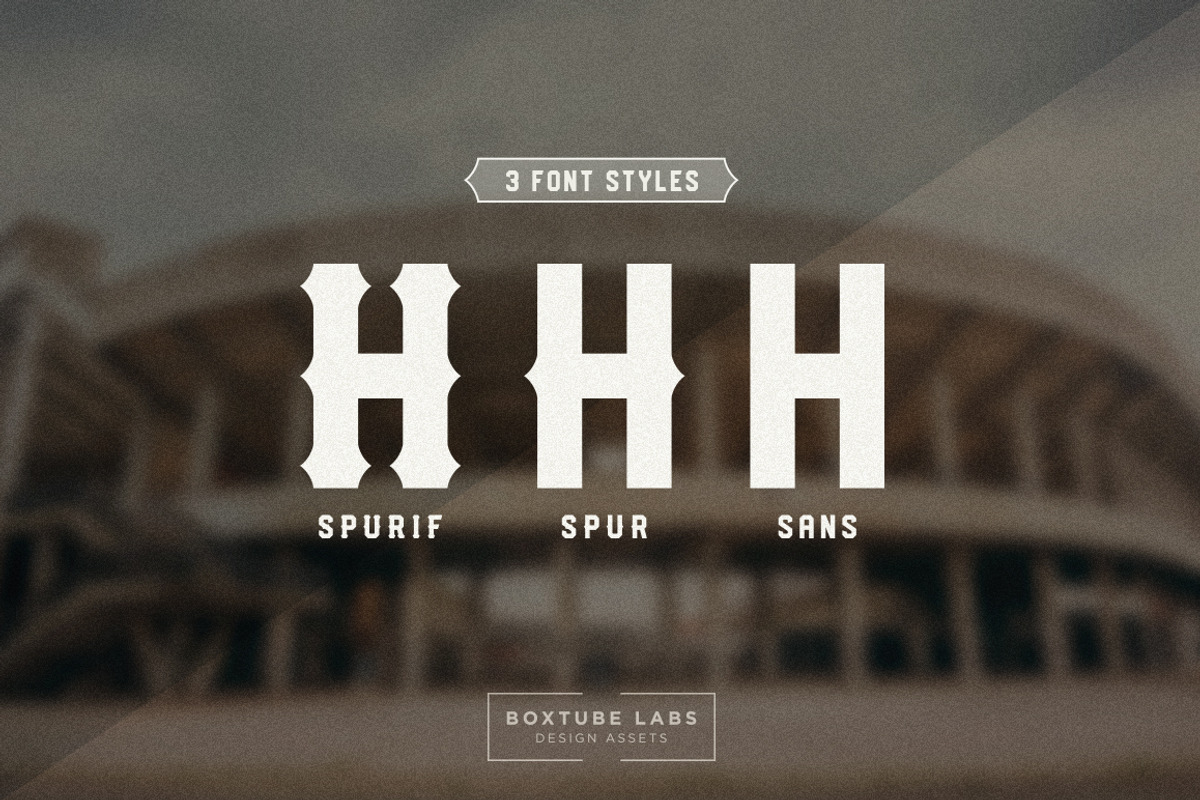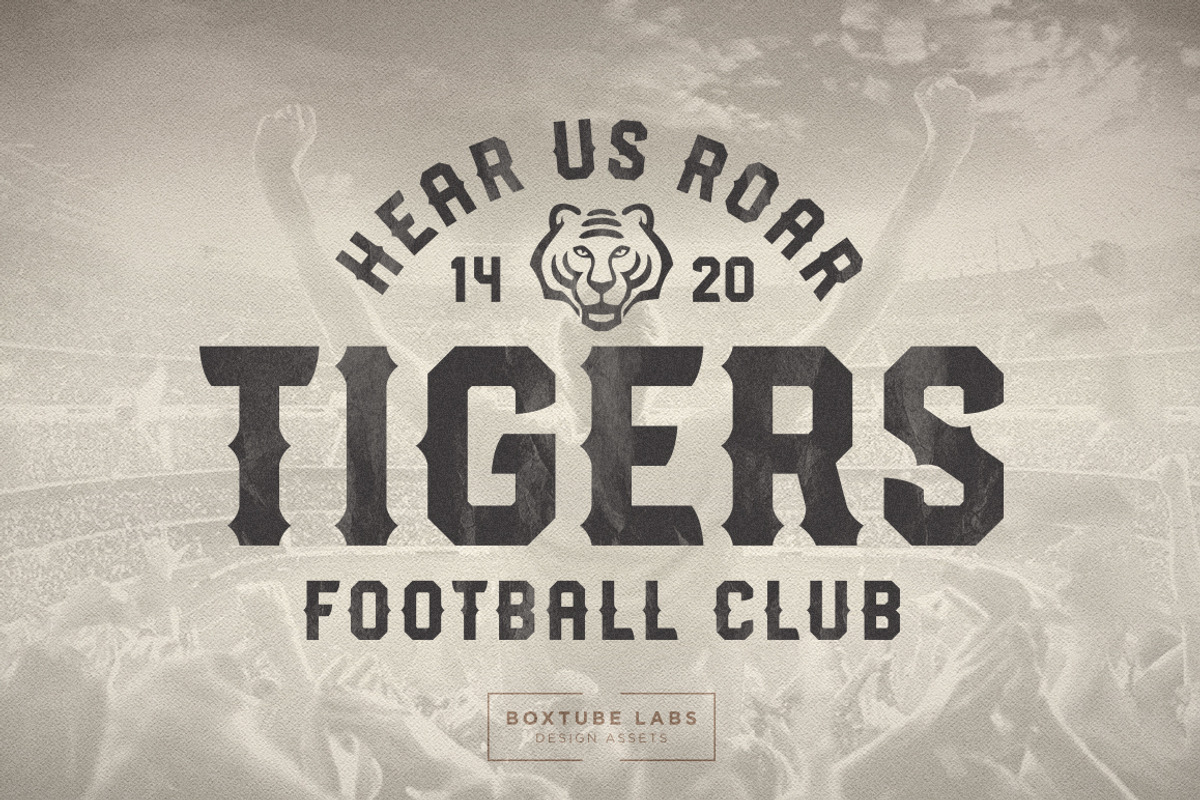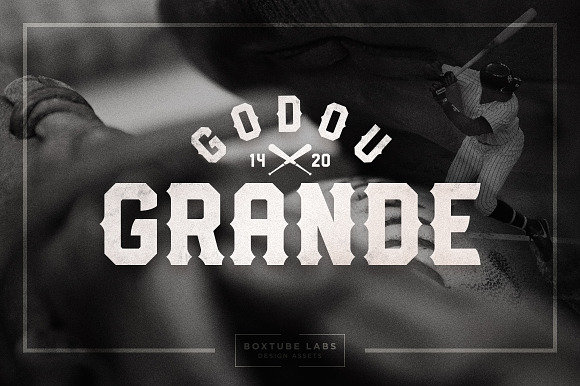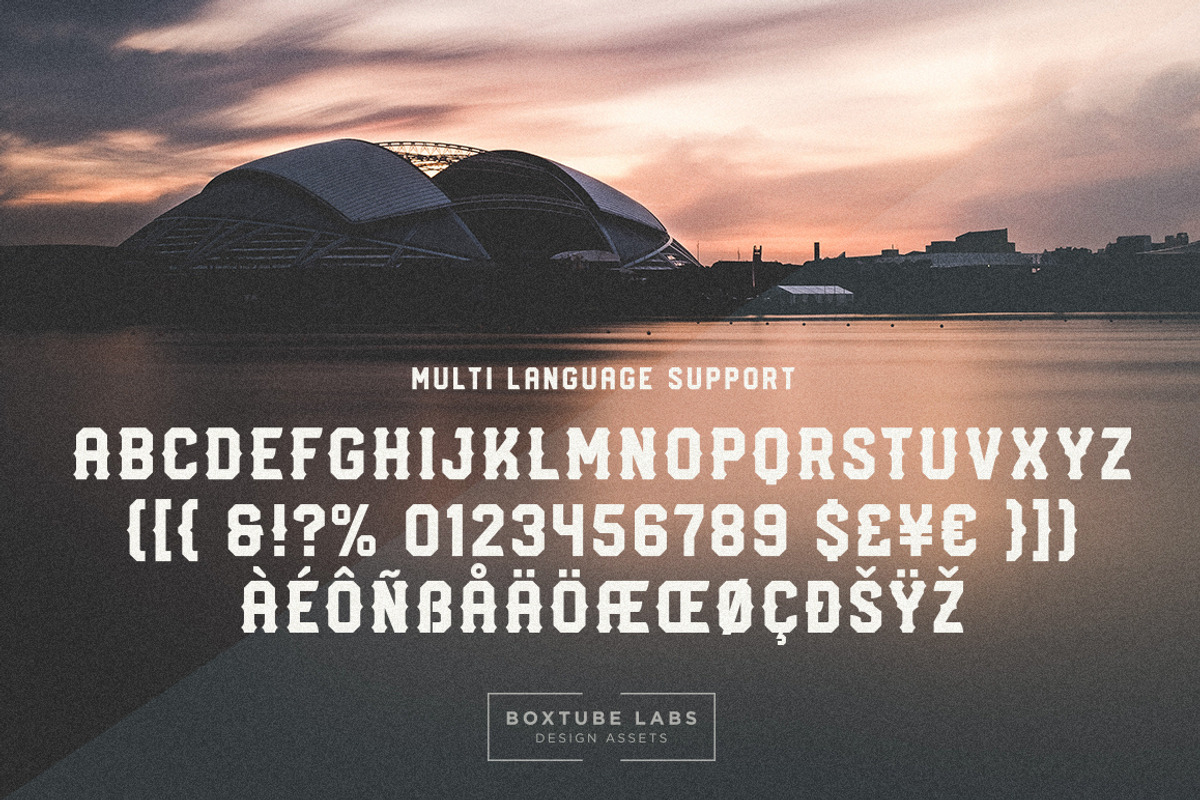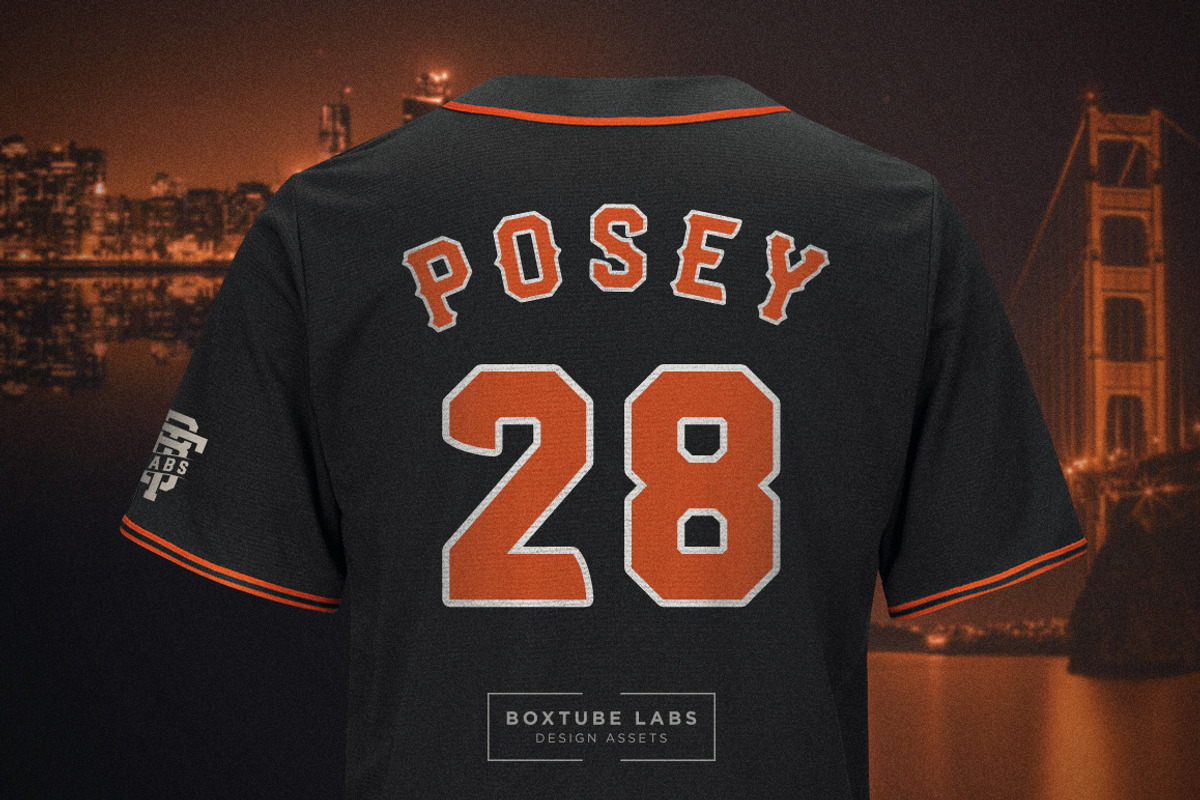
Godou Grande - Display Font
Godou Grande is a powerful and creative font family with three styles; Sans, Spur & Spurif. It's designed with sports logos, apparel design, branding, posters and labels in mind, but it will do the job in most areas of your design workflow. Artist promotions, liquor labels, festival posters - the sky's the limit.
Godou Grande has support for most western languages including: Afrikaants, Basque, Breton, Catalan, Danish, Dutch, English, Finnish, French, Gaelic, German, Icelandic, Indonesian, Irish, Italian, Norwegian, Portuguese, Sami, Spanish, Swahili and Swedish.
- Godou Grande Sans
- Godou Grande Spur
- Godou Grande Spurif